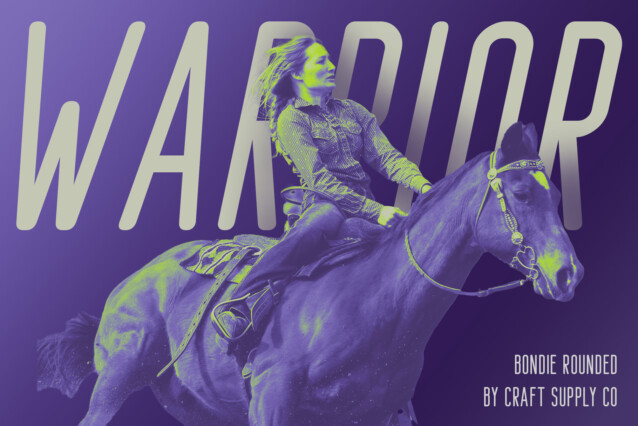
Bondie Rounded Font
Bondie Rounded Font is a sleek sans serif font with rounded edges, adding a touch of softness to its appearance.
Condensed and Low Contrast The font boasts a condensed style with low contrast between its thick and thin strokes, resulting in a modern and compact aesthetic.